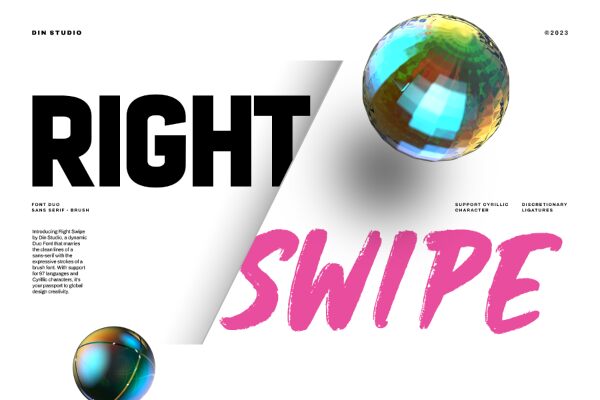
Right Swipe font by Din Studio is a free sans-serif font blending modern and dynamic energy with artistic flair. The font’s contemporary style is designed to make a bold expression and catch the viewer’s attention. The unique font combines contrasting styles within letterforms to result in typography with versatile applications. Its fresh aesthetic and vibrant presence will make it the perfect addition to any digital or print design.
Use Right Swipe font in business cards, flyers, social media designs, mobile applications, stickers, and posters. Use the font to produce signages, invitations, t-shirts, book covers, and magazine covers. In all cases, enjoy dynamic and visually powerful outcomes your audience will remember.
Right Swipe is a fantastic sans serif brush font duo. The sans serif typography in Right Swipe epitomizes simplicity and elegance. Designed in uppercase, it features clean lines and a minimalist aesthetic, offering a versatile and stylish look. This sans serif typeface embodies timeless sophistication and contemporary appeal.